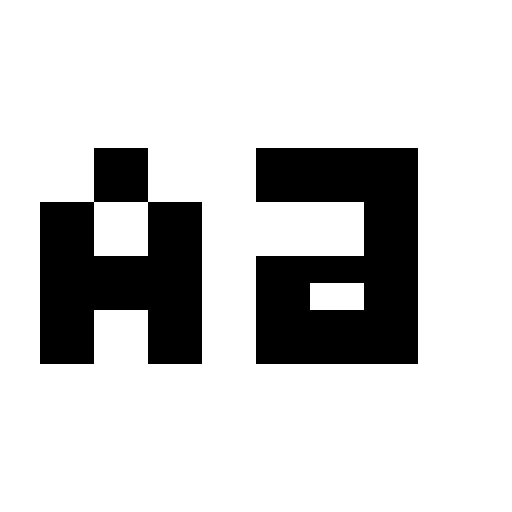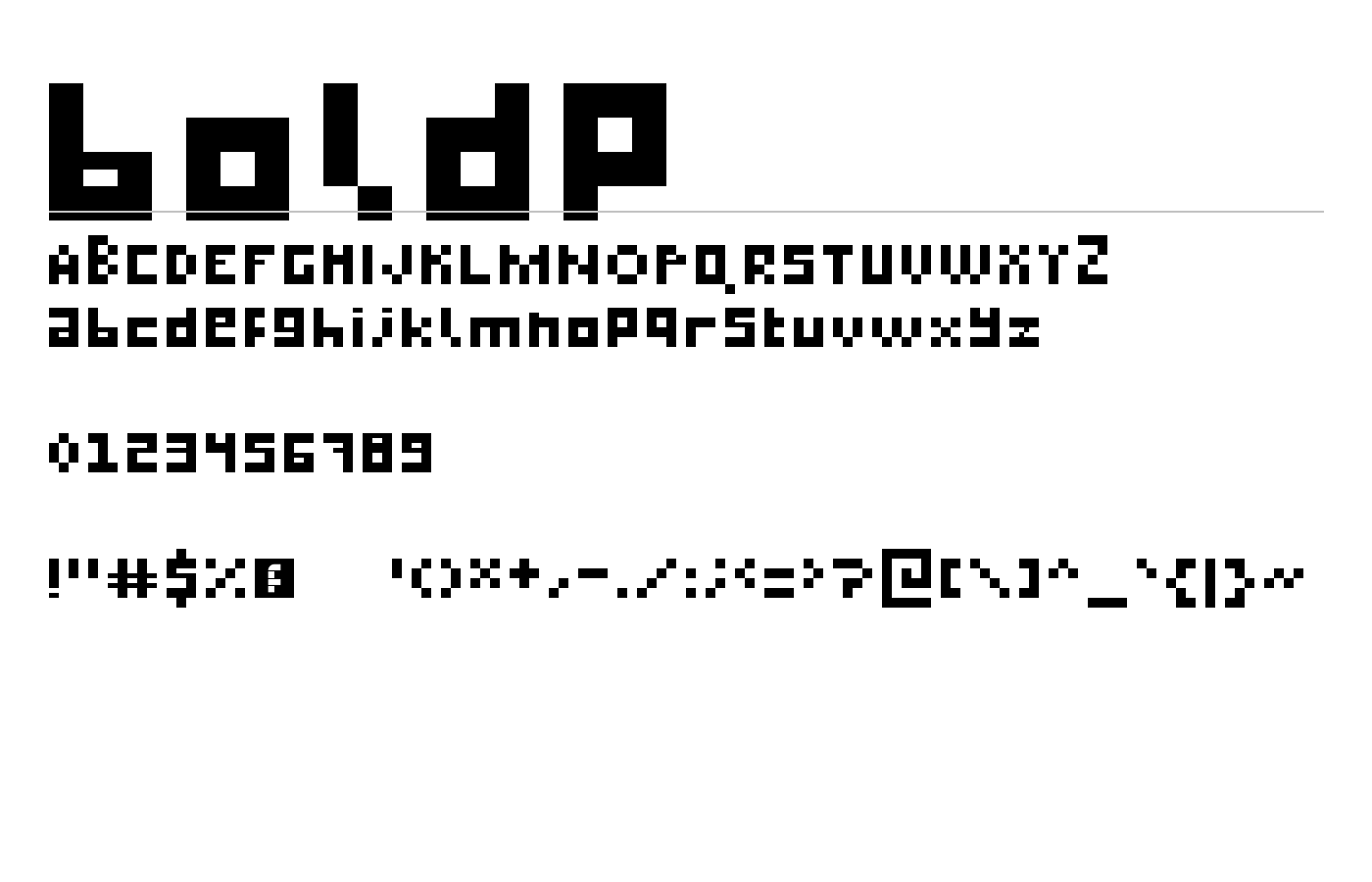
Boldp is a bold, geometric sans serif font with a blocky, pixel-art aesthetic that gives it a distinctly modern and digital feel. Its strong, uniform strokes and sharp edges create a compact and technical look, making it ideal for tech-related branding, retro-inspired designs, or digital interfaces seeking a bold and attention-grabbing style. This font works best in headlines, logos, or any graphic context where a structured, pixel-perfect vibe is desired.
boldp Font